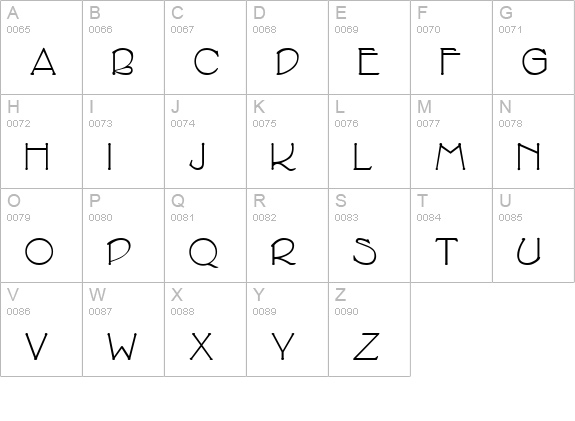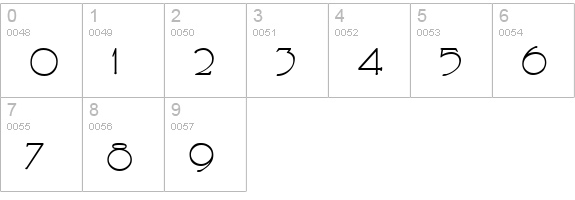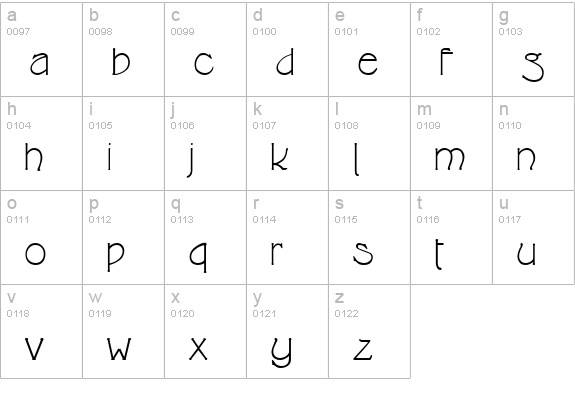
Archibald Font Details
Archibald font is a timeless and elegant typeface that exudes sophistication and charm. With its classic and refined letterforms, Archibald font is perfect for a variety of design projects, from wedding invitations to branding materials. What sets Archibald font apart is its versatility and readability, making it a popular choice among designers and creatives alike. Whether used for headlines, body text, or logo design, Archibald font delivers a sense of style and professionalism. And the best part? Archibald font is available for free download at FontsMarket.com! This means you can easily access this stunning typeface and incorporate it into your projects without any cost. Don't miss out on the opportunity to elevate your designs with the exquisite Archibald font today!